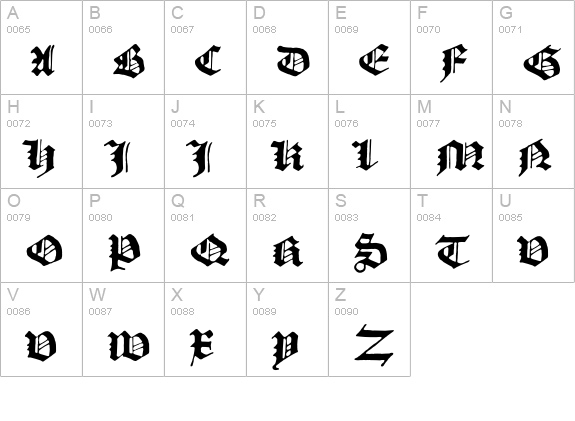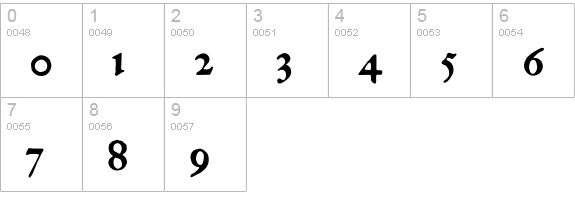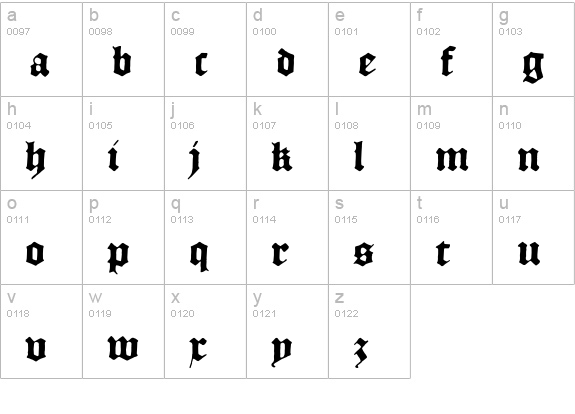
Historical-EnglishTextura Font Details
Historical English Textura font is a timeless and elegant typeface that harkens back to the medieval era with its intricate details and strong, bold strokes. This font exudes a sense of history and tradition, making it perfect for projects that require a classic and sophisticated touch. Its Old English-inspired design adds a touch of authenticity and charm to any text, whether it be for invitations, book covers, or signage. What sets Historical English Textura font apart is not only its historical aesthetic but also its versatility. It can be used for both formal and informal purposes, adding a touch of sophistication to any design. The sharp angles and fine details of this font make it stand out on the page, drawing the eye and adding visual interest. Best of all, Historical English Textura font is freely available to download at FontsMarket.com. This means that you can easily access and use this stunning typeface for any of your projects without any cost. Whether you're a seasoned designer looking to add a touch of history to your work or a novice looking for a unique font to experiment with, Historical English Textura font is sure to impress. Download it today and bring a touch of the past into your designs!